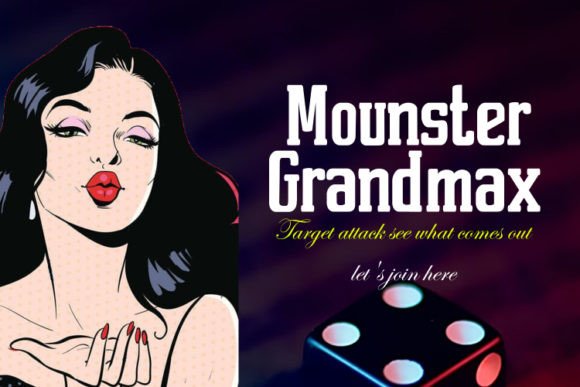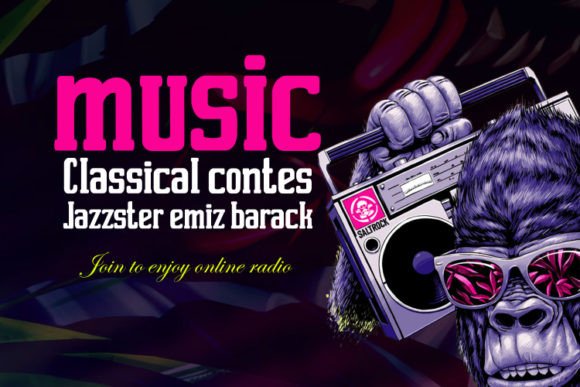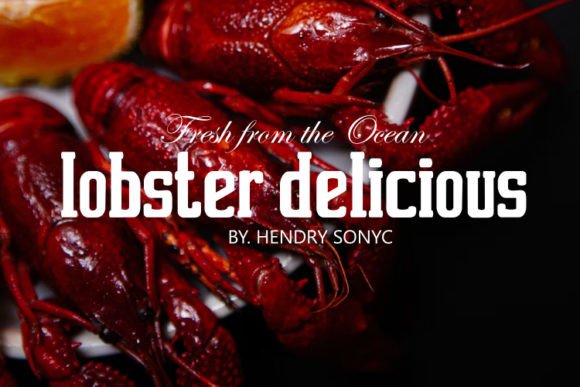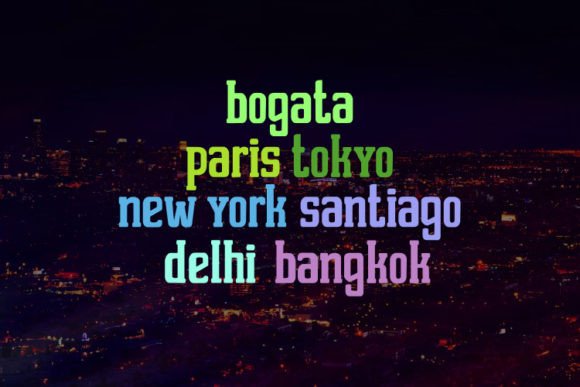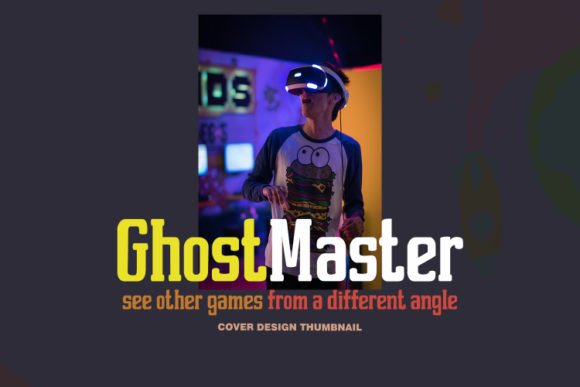
Introduction to Sambo Briliant Font
Have you ever been stuck on a creative project, searching for the perfect font to elevate your design to the next level? You spend hours scrolling through online marketplaces, only to be met with a sea of generic fonts that just don’t quite cut it. Well, we’ve got the solution for you!
Meet the Sambo Briliant Font, a game-changing addition to any designer’s toolkit. This high-quality, modern serif display font is sure to make your designs stand out from the crowd. With its incredibly distinct and timeless style, you’ll fall in love with its versatility and use it to create spectacular designs that leave a lasting impression.
Key Features of Sambo Briliant Font
- High-quality design resource perfect for creative projects
- Features a unique, hand-drawn style with a transparent background for versatile use
- Resolution-independent, ensuring crisp and clear text display regardless of screen size or resolution
Honest Review: Sambo Briliant Font
As a designer, I’m always on the lookout for high-quality design resources to enhance my creative projects. Recently, I stumbled upon the Sambo Briliant Font, and I’m excited to share my honest review with you.
- ✨ The font is incredibly versatile and can be used for a wide range of creative projects, from web design to print materials.
- ✨ The high-quality design ensures that the font looks great on both light and dark backgrounds.
- ✨ The transparent background makes it easy to combine with other design elements.
However, I do have a few limitations to mention:
- ⚠️ The font may not be suitable for very small text sizes, as it can become blurry.
- ⚠️ Some users may find the font too playful or casual for certain design projects.
Overall, I’m impressed with the Sambo Briliant Font. It’s a great addition to any designer’s toolkit, and its high-quality design and versatility make it a valuable resource for any creative project. If you’re looking for a fun and modern font, I highly recommend giving it a try.
Tips for Getting the Most Out of Sambo Briliant Font
For the best results, use Sambo Briliant Font on a high-quality design resource, such as a transparent background, to showcase its unique characteristics. You can also experiment with different font sizes, colors, and styles to create a visually appealing design.
Sambo Briliant Font is a versatile design resource that can be used for a variety of creative projects, including logos, brochures, and social media graphics. Its unique design makes it an excellent choice for adding a touch of personality to your designs.